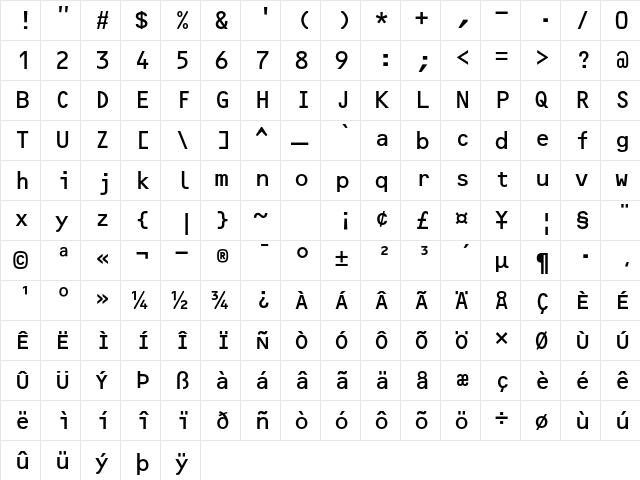
OCR B Std Regular
| Designer | Adrian Frutiger and Adobe Type staff |
Design Context for OCR B Std Typeface
OCR B Std takes a measured approach to typography — its balanced proportions and neutral character make it a reliable workhorse for both digital and print work.